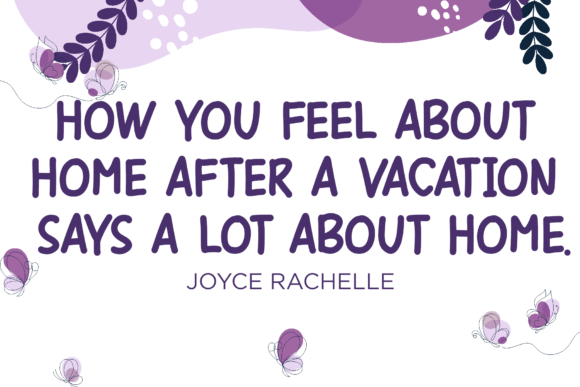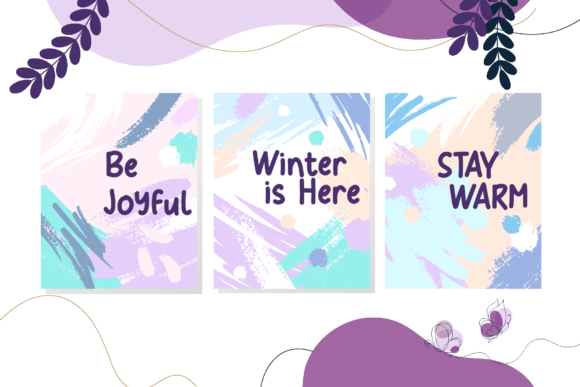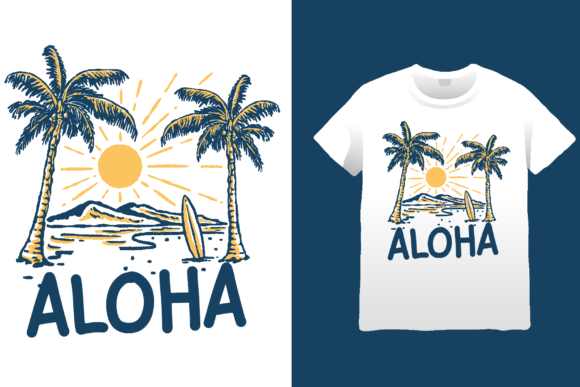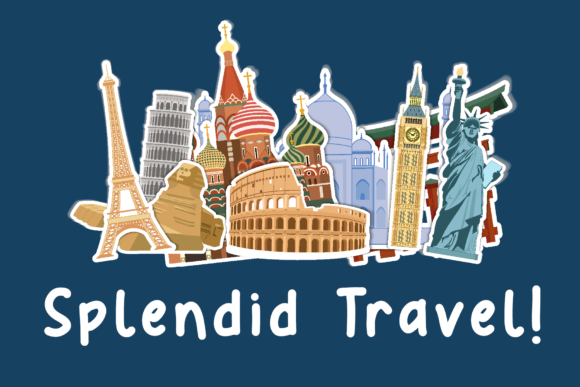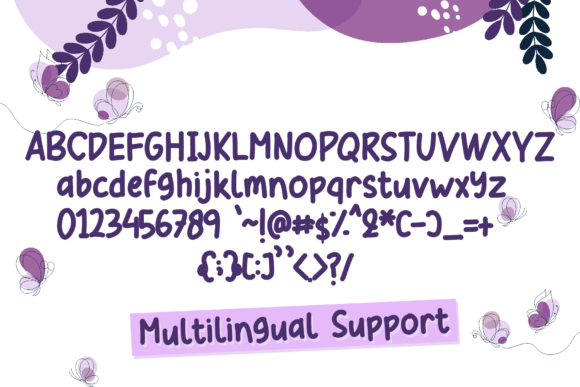
Introduction to Round Butterfly Font
Do you ever find yourself in a creative slump, staring at a blank page or canvas, waiting for inspiration to strike? For designers like you, those moments can be frustrating, but also opportunities to explore new design resources. That’s where the Round Butterfly Font comes in – a playful and flexible font that can breathe life into your next project.
Whether you’re working on a shirt design, a greeting card, or even trying to replicate your natural handwriting, the Round Butterfly Font is an excellent choice. Its unique, rounded design makes it perfect for adding a touch of whimsy and personality to your creative project. And the best part? This high-quality font is available for free download, complete with a transparent background, making it easy to integrate into your design.
Key Features of Round Butterfly Font
- Unique, elegant design suitable for various creative projects, such as greeting cards, logos, and advertisements.
- High-quality font with clear, legible characters, suitable for print and digital projects.
- Perfect for designers looking for a beautiful, whimsical font to add a touch of elegance to their creative project.
Honest Review: Round Butterfly Font
I recently stumbled upon the Round Butterfly Font and was excited to give it a try for my next design project. As a designer, I always appreciate a high-quality font that adds a touch of elegance to any creative project.
The font itself is beautiful, with a unique blend of whimsy and sophistication. The ✨ rounded shapes and delicate details make it perfect for designs that require a touch of femininity. I also appreciate the fact that it comes with a ✨ transparent background, making it easy to customize and use in various design settings.
- Unique and elegant design
- High-quality font that’s perfect for creative projects
- May not be suitable for bold or sans-serif designs
- Some users may find the font too delicate or fragile
Overall, I’m impressed with the Round Butterfly Font and would definitely recommend it for designers looking for a high-quality, unique font for their creative projects. With its free download and transparent background, it’s a great resource to have in your design arsenal.
Round Butterfly Font
The Round Butterfly Font is a high-quality, free download font perfect for any creative project. With its unique and elegant design, this font is ideal for adding a touch of sophistication to your work.
The Round Butterfly Font is ideal for use in a variety of creative projects, including:
- Birthday and holiday cards
- Artistic and creative projects
Alternatives to Round Butterfly Font
Pacifico is a high-quality, elegant script font ideal for creative projects that require a touch of sophistication. It’s perfect for designing invitations, branding materials, and other design resources where a refined look is desired.
Compared to Round Butterfly Font, Pacifico has a more classic and timeless feel, making it suitable for projects that require a subtle, yet elegant look.
Great Vibes is a beautiful, handwritten font that’s perfect for designing posters, flyers, and other visual materials that require a free-spirited and creative feel.
Compared to Round Butterfly Font, Great Vibes has a more whimsical and playful tone, making it ideal for projects that require a carefree and artistic vibe.
Alex Brush is a high-quality, elegant script font that’s perfect for designing logos, branding materials, and other design resources where a sophisticated and refined look is desired.